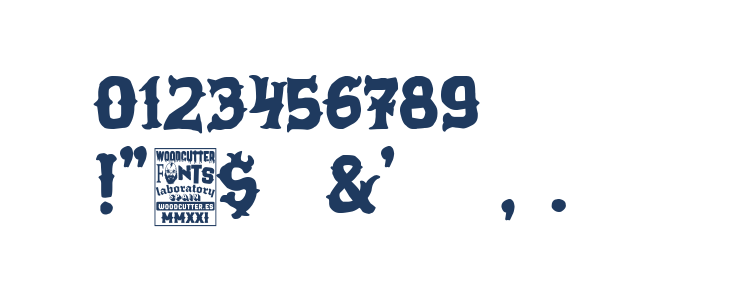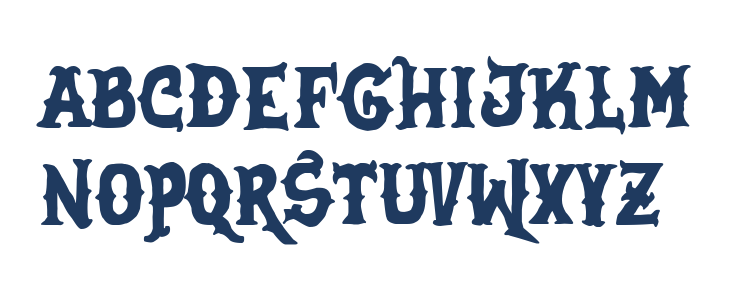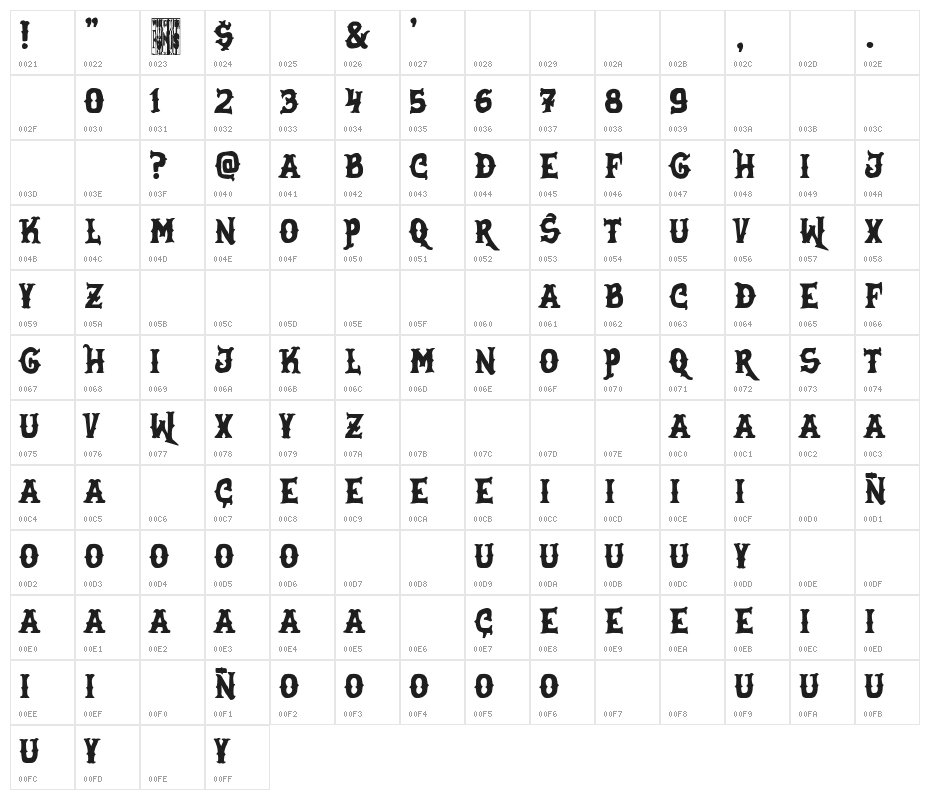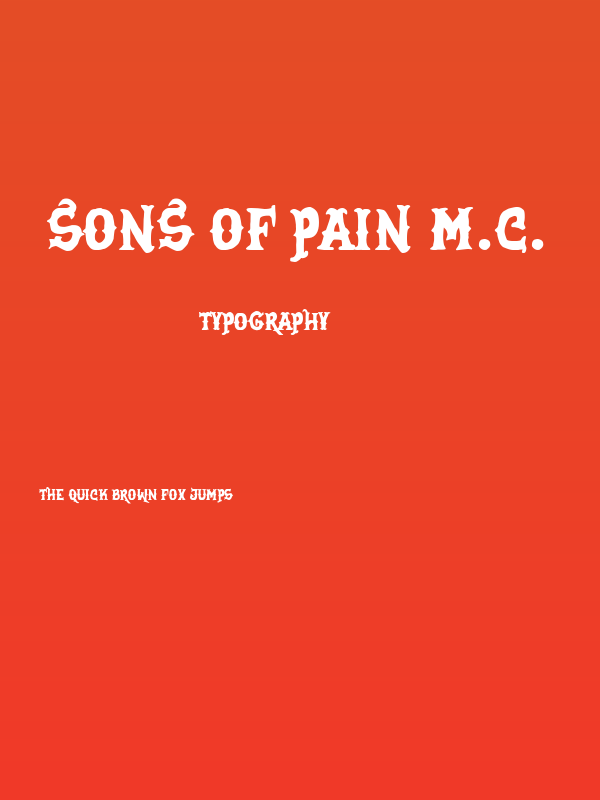
Sons of Pain M.C. Font
Sons of Pain M.C. Description
A bold, jagged display typeface with heavy strokes and irregular, sharp edges, evoking a rebellious and gritty aesthetic. The characters are uppercase only, with dramatic serifs and a hand-crafted, distressed appearance.
| Overall Style | Decorative, Gritty, Rebellious |